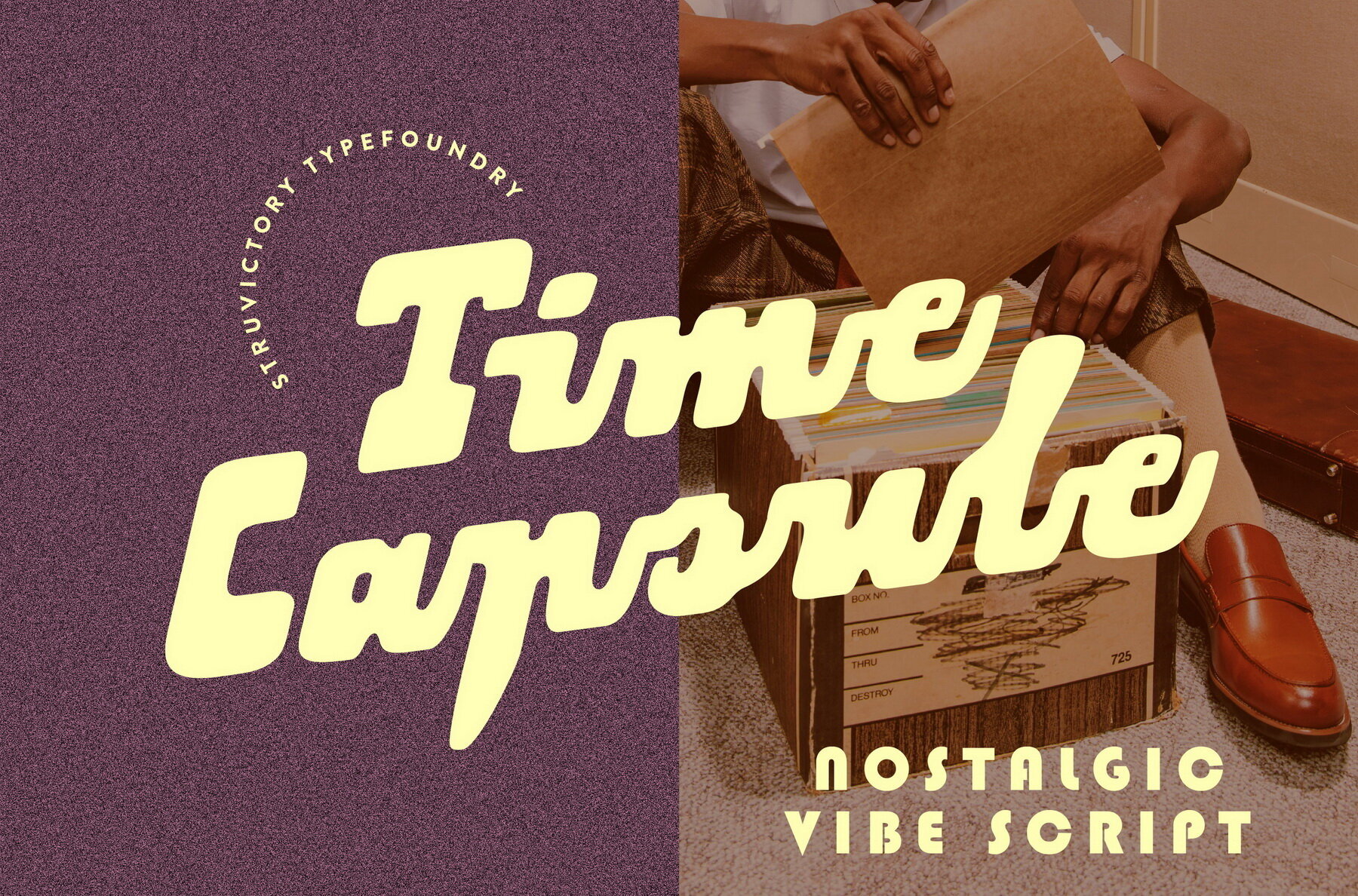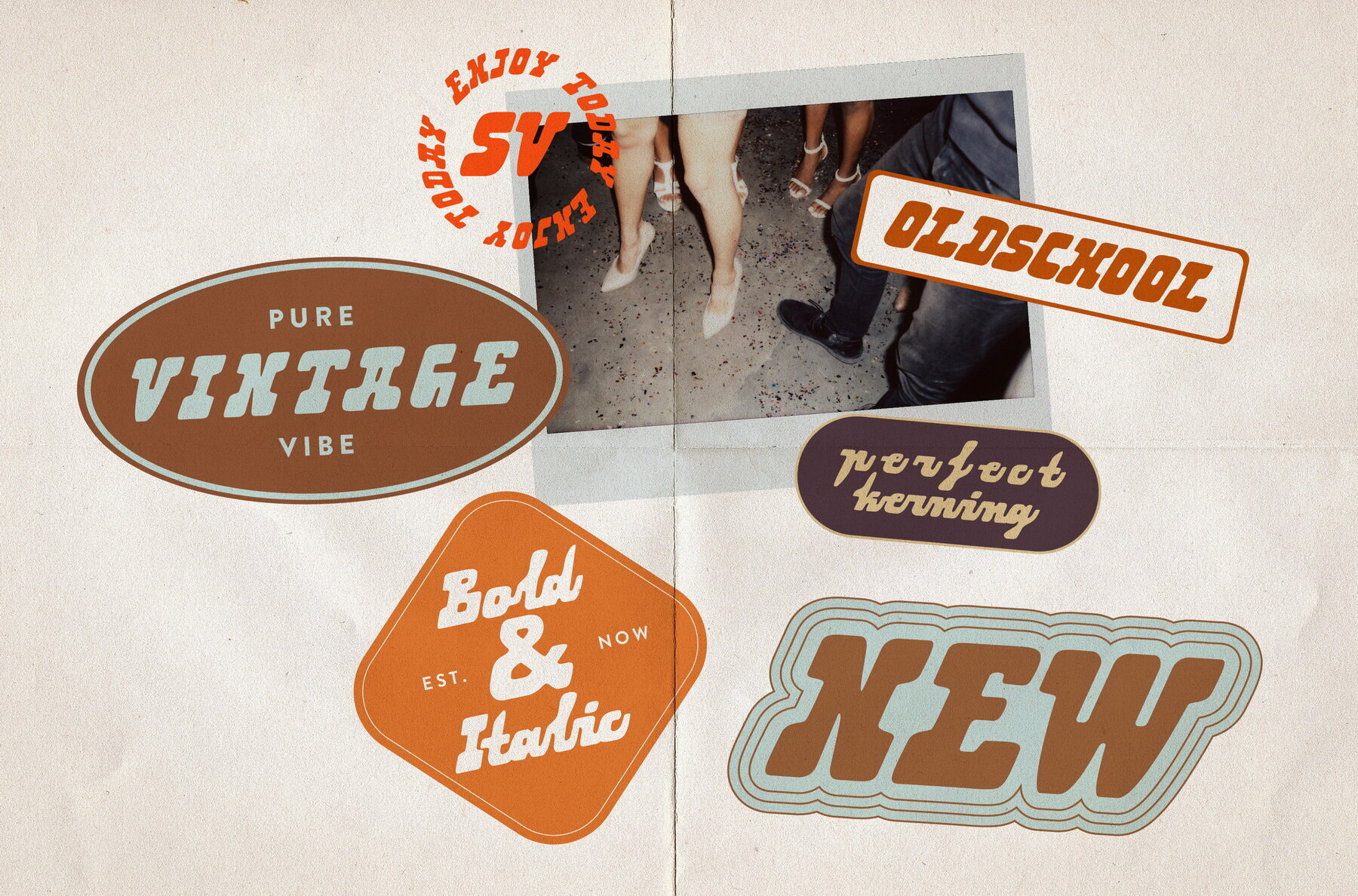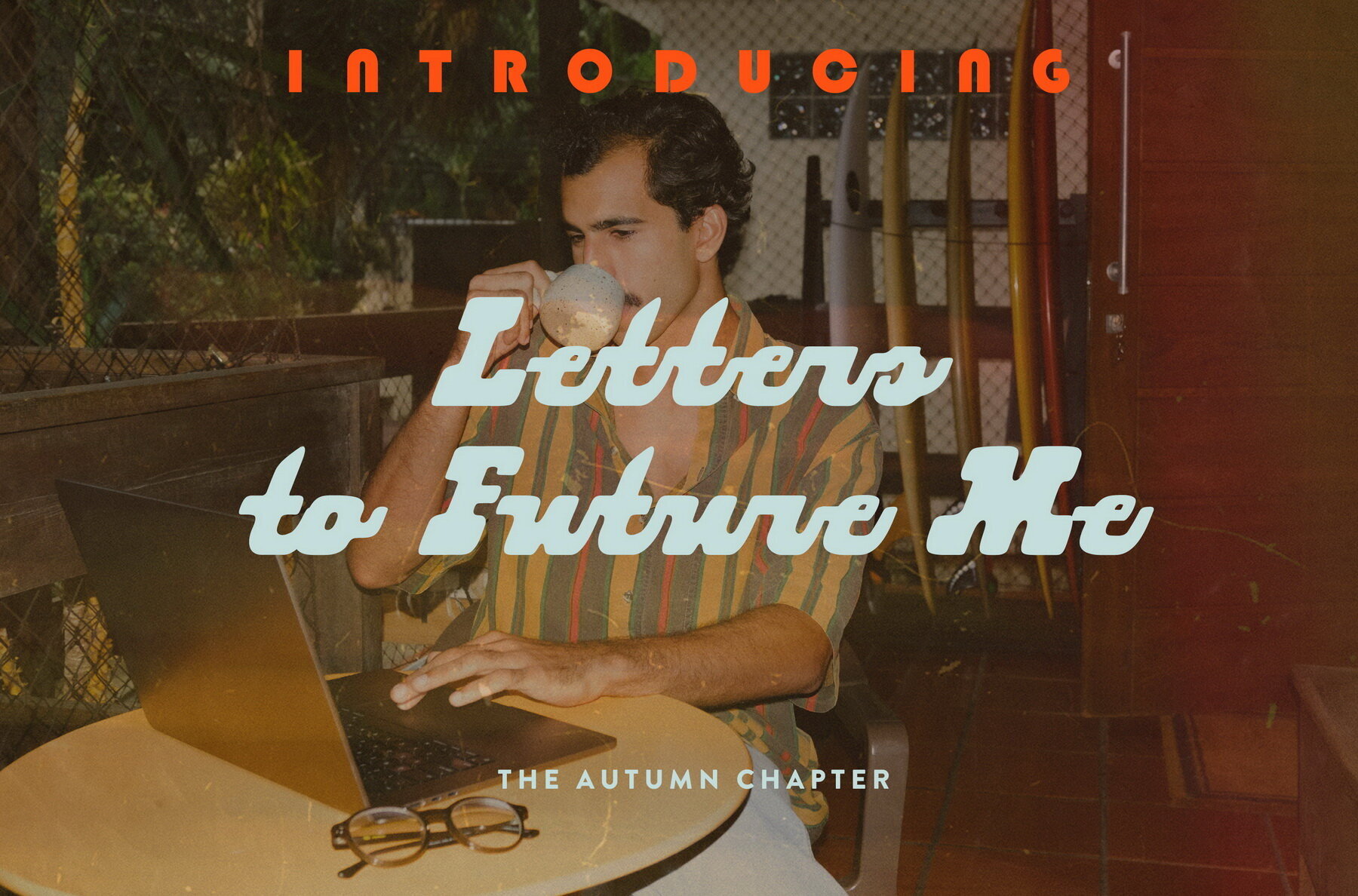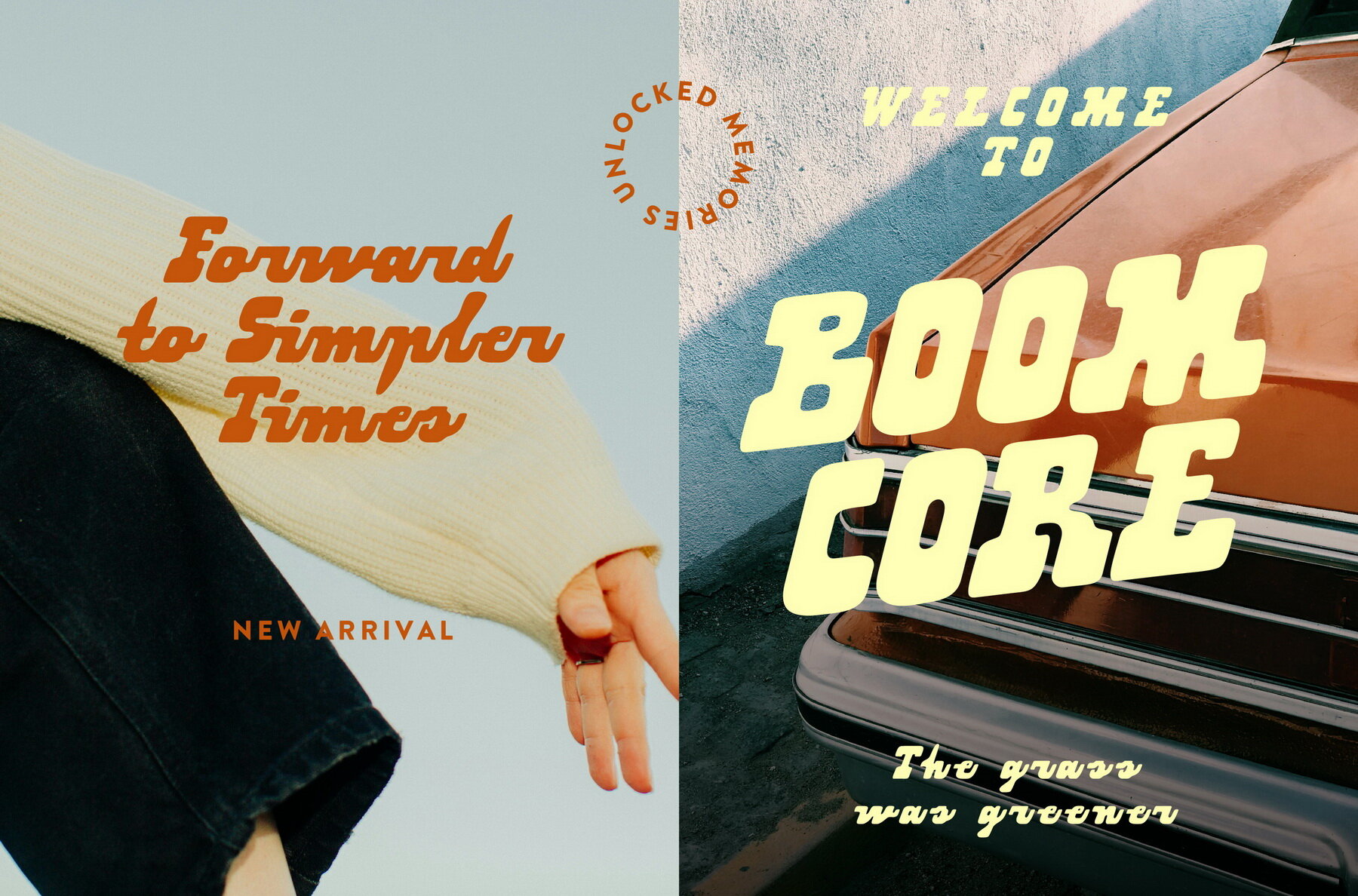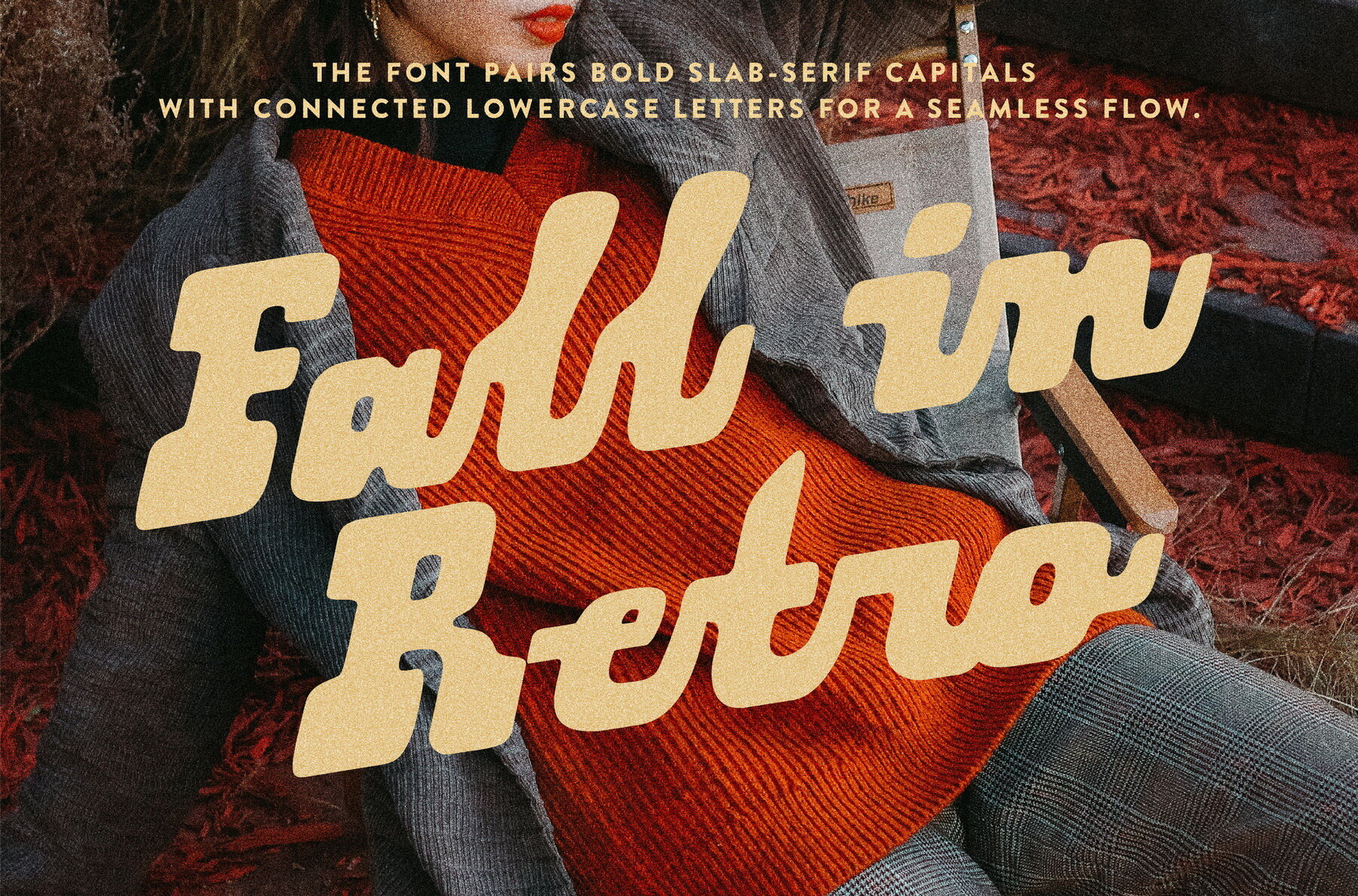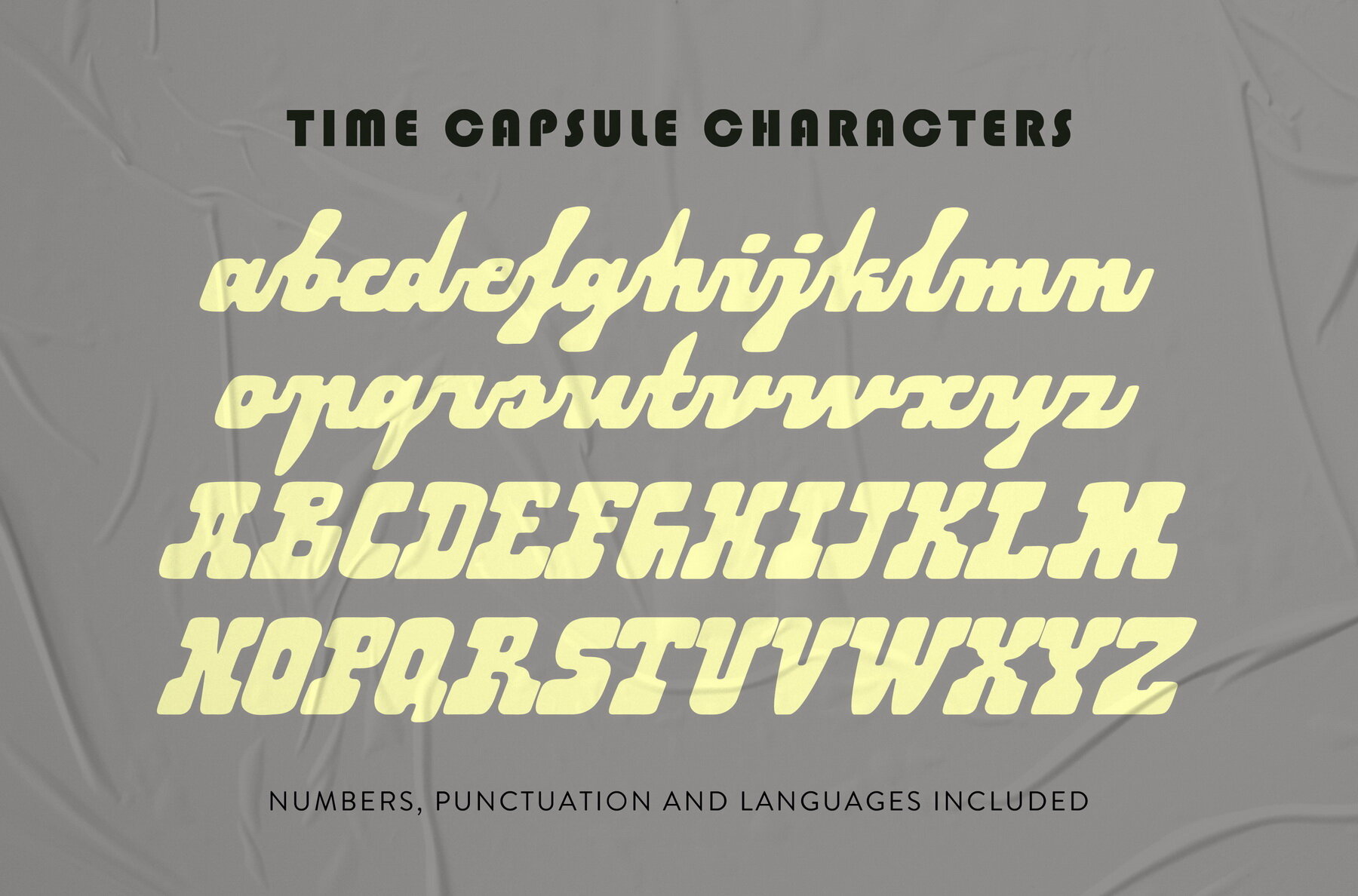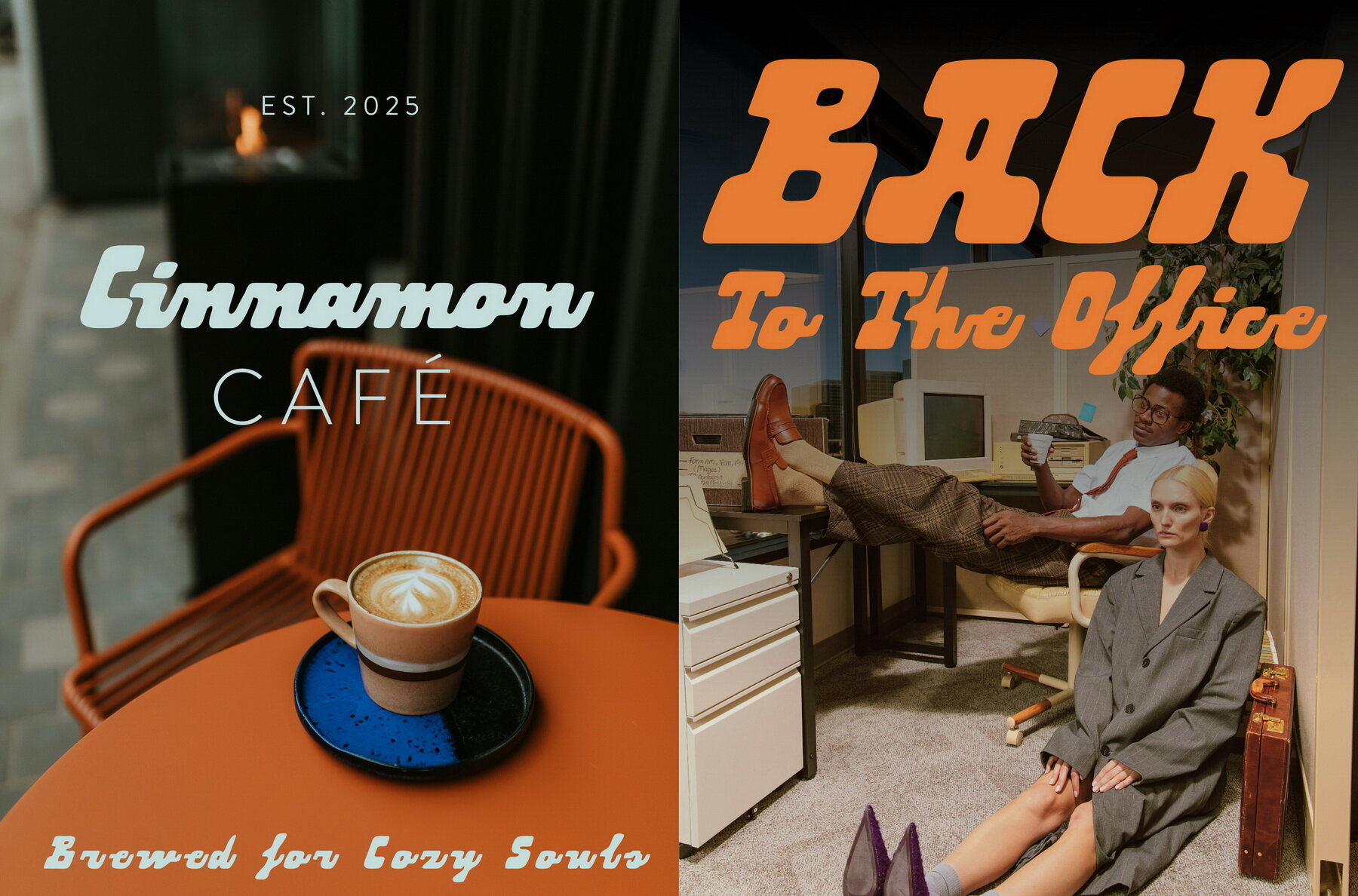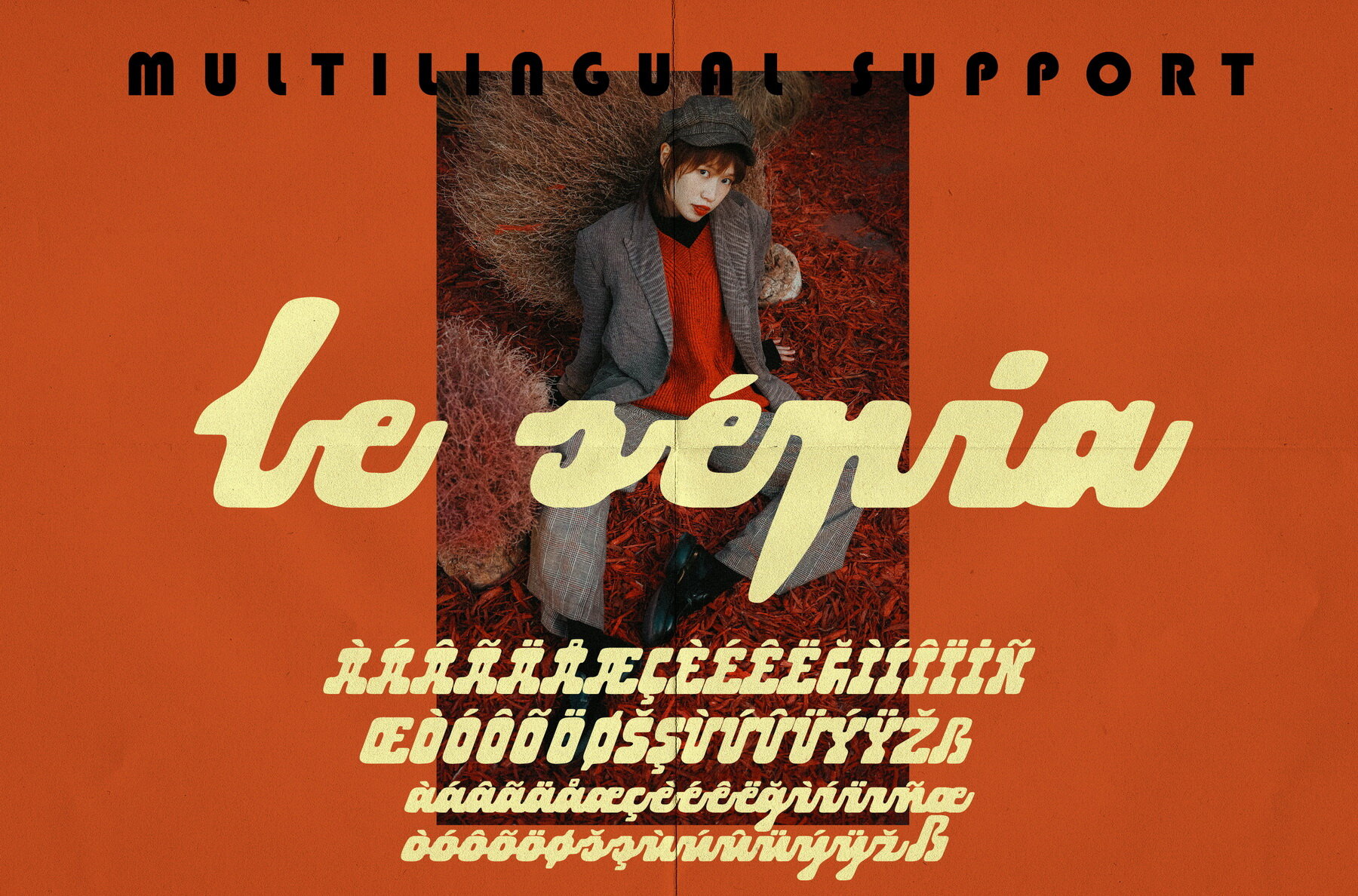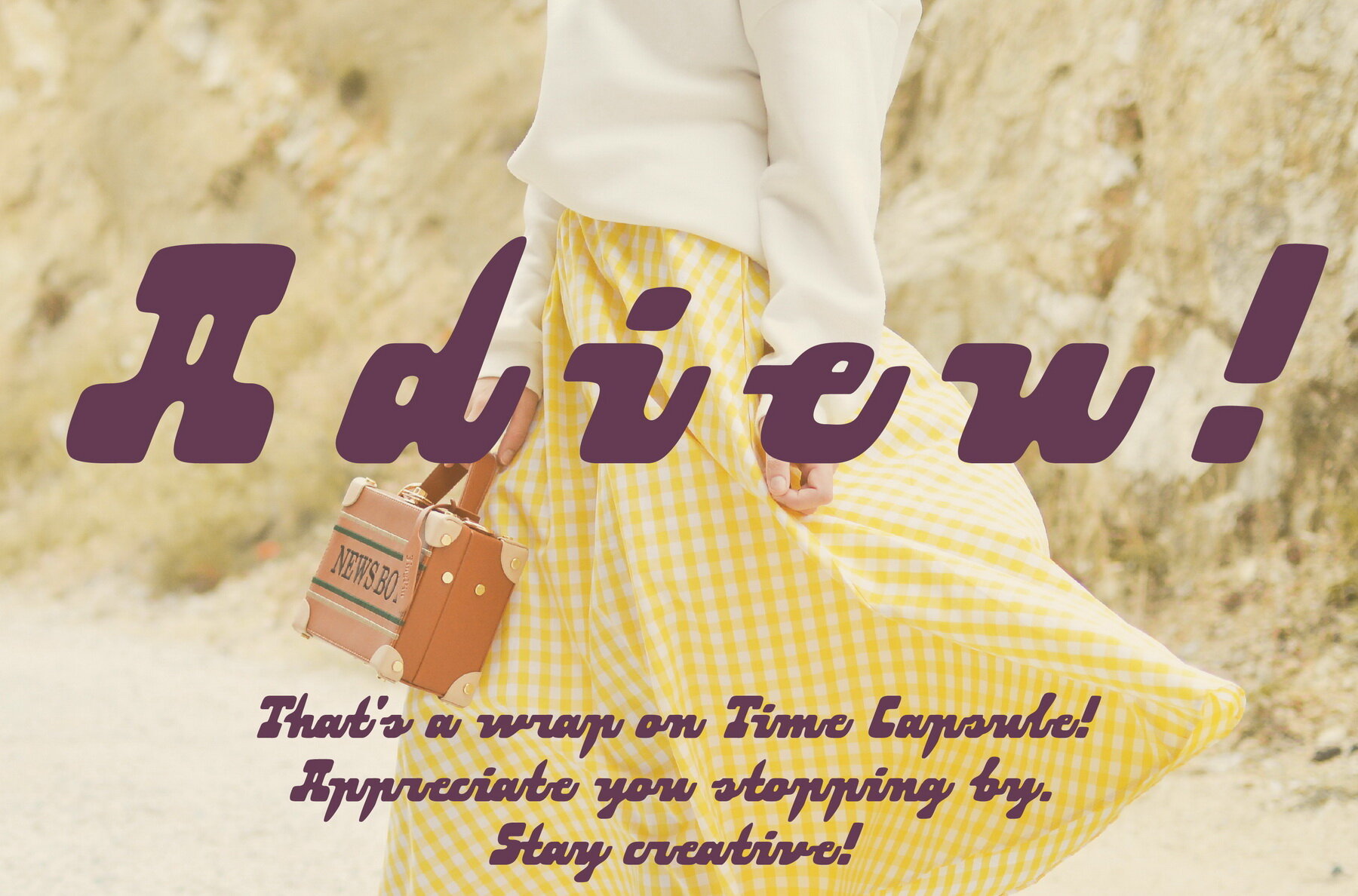
Time Capsule Font
Time Capsule Script
Time Capsule is a bold script font that bridges the charm of vintage logos with the artistry of hand lettering. Its sharp, squared strokes infused with a groovy retro aesthetic make it an exemplary choice for branding, packaging, and headlines where a warm, authentic ambiance is desired. This font strikes a balance between readability and personality, presenting a timeless script tailored for modern nostalgia.Time Capsule: Nostalgic Script with Retro Flair